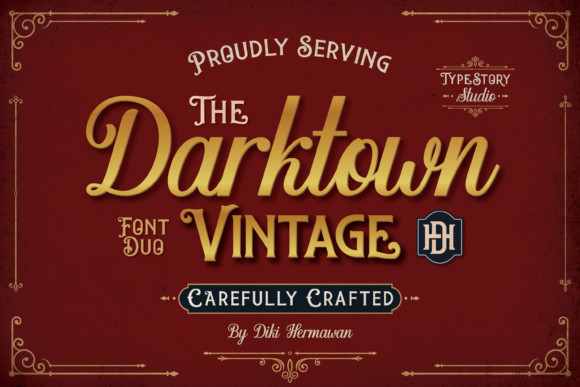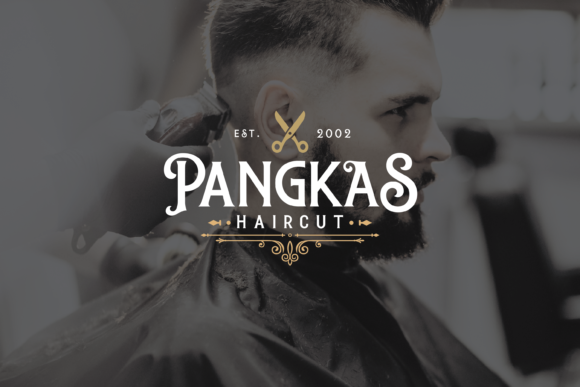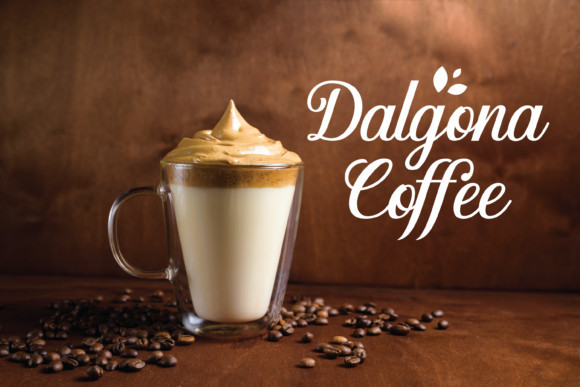
Darktown Font
Darktown is a vintage display font. It is perfect for posters, logos, flyers, branding and packaging. It features two styles and it brings bonus text styles.